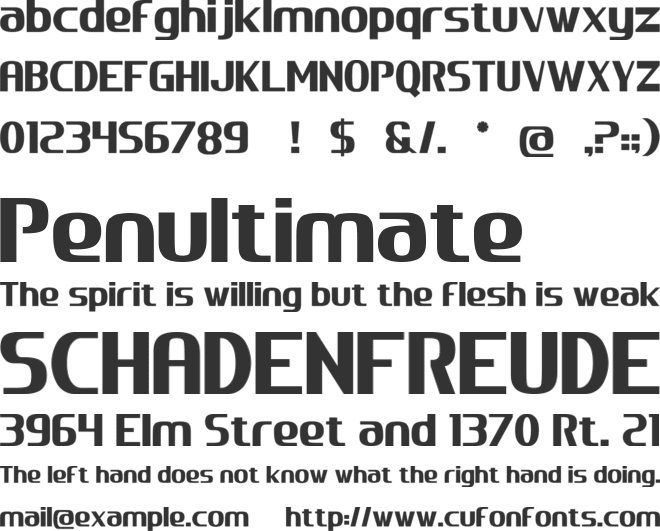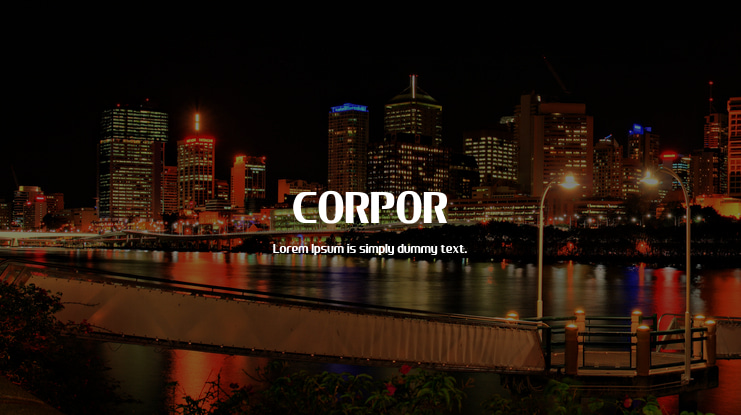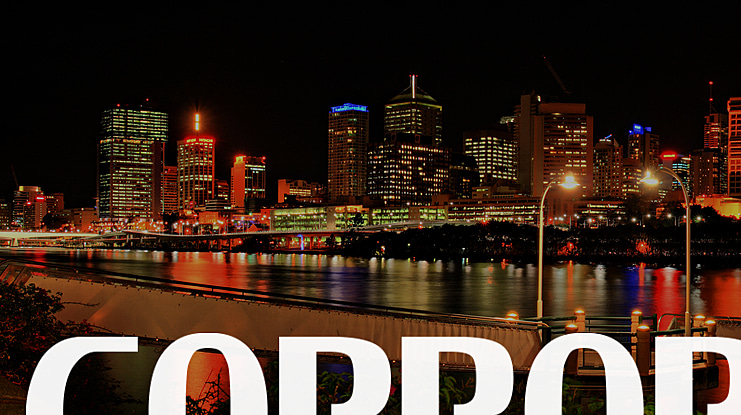
CORPOR Font
Corpor is a bold font based in two things combination such as little playful & technology or futuristic that are most legible in the character in corpor font. Hello, Thank You For Download Our FontsWe appreciate your support with us using commercial licenseNote:This Demo Font is for Personal Use onlyPURCHASE The commercial license at here:https://www.creativefabrica.com/product/corpor/https://fontbundles.net/eitiqadstudio/1569112-corporOur Website:https://eitiqad.com/